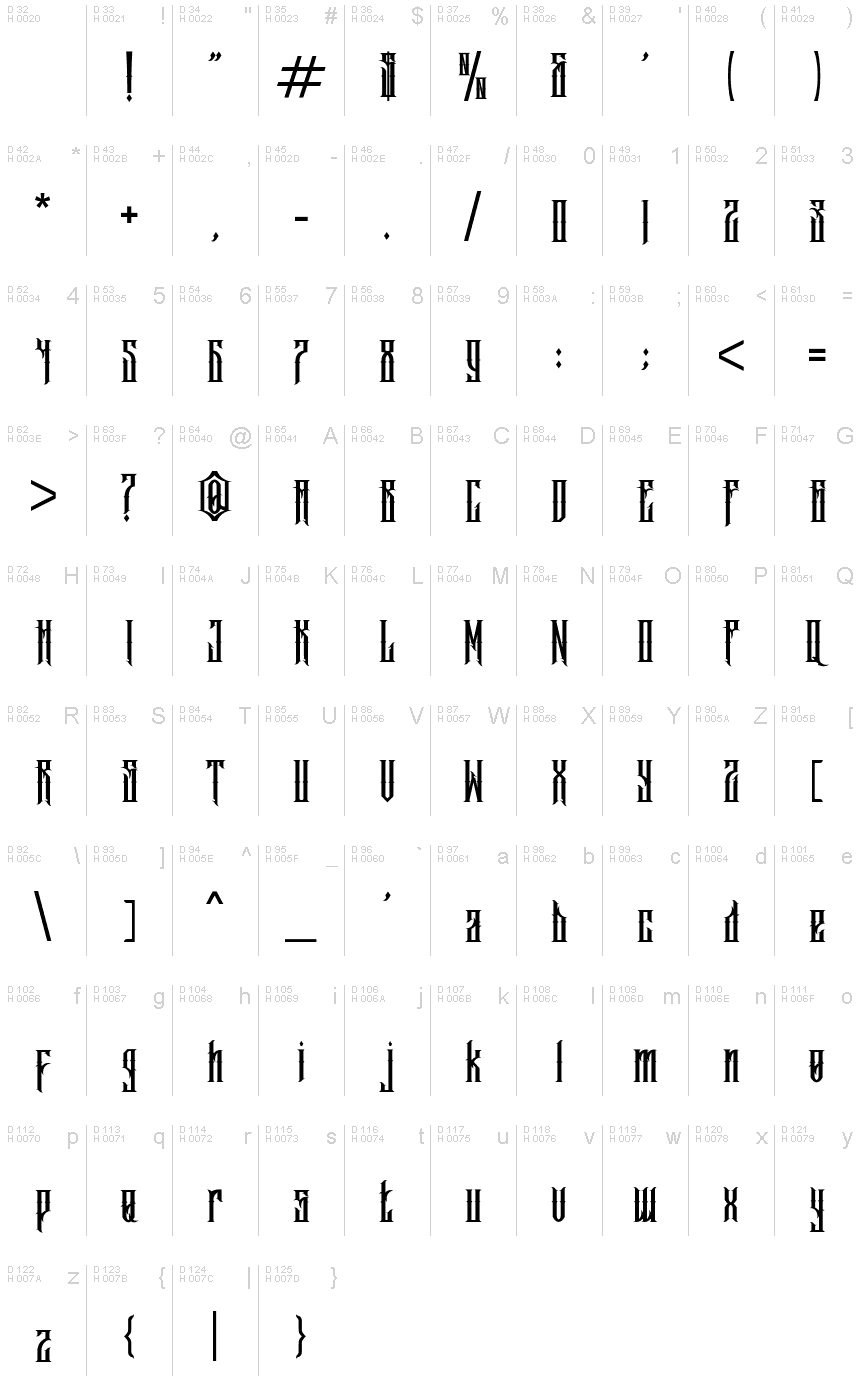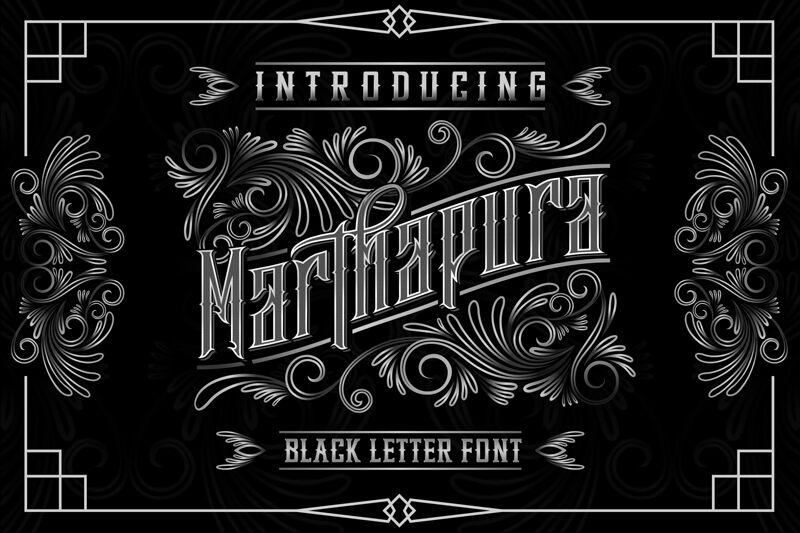
Marthapura
Marthapura Blackletter Font is a new modern vintage decorative font manufactured by EkoZero7. This typeface will look truly outstanding in a wide range of contexts. Marthapura font can be used for different purposes: logo and branding, poster, product packaging, advertising, invitations, port apparel, game industry, movie, and any typography design projects.